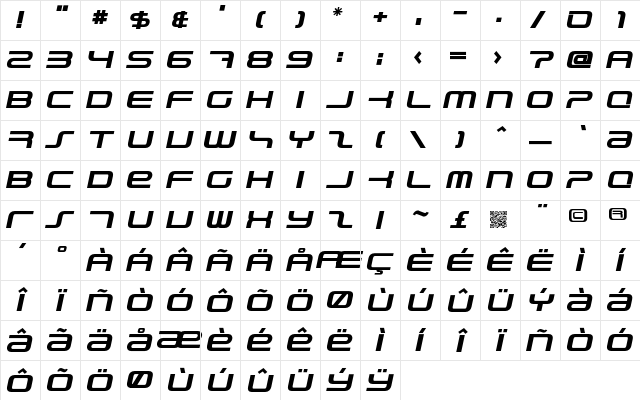
PhatBoy Slim Bold Italic
Foundry: TracerTong
Design Context for PhatBoy Slim
PhatBoy Slim is a composed and adaptable typeface that performs quietly and consistently across a wide range of design contexts. The slanted form adds forward momentum and visual energy. Its bold stroke weight gives it real presence on the page.